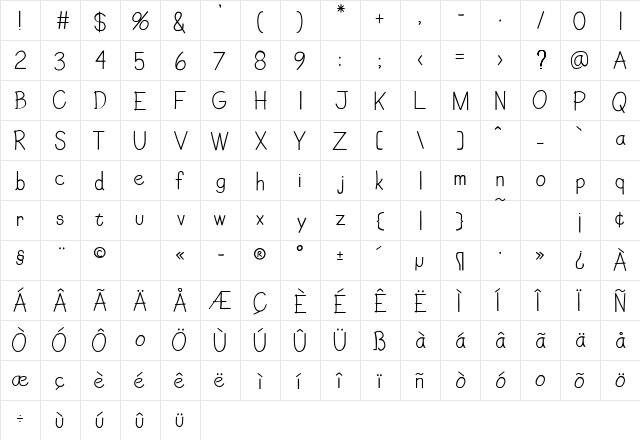
AIHannah Medium Font Preview
AIHannah Medium
AIHannah Medium Font Details
Design Context for AIHannah Typeface
AIHannah takes a measured approach to typography — its balanced proportions and neutral character make it a reliable workhorse for both digital and print work.